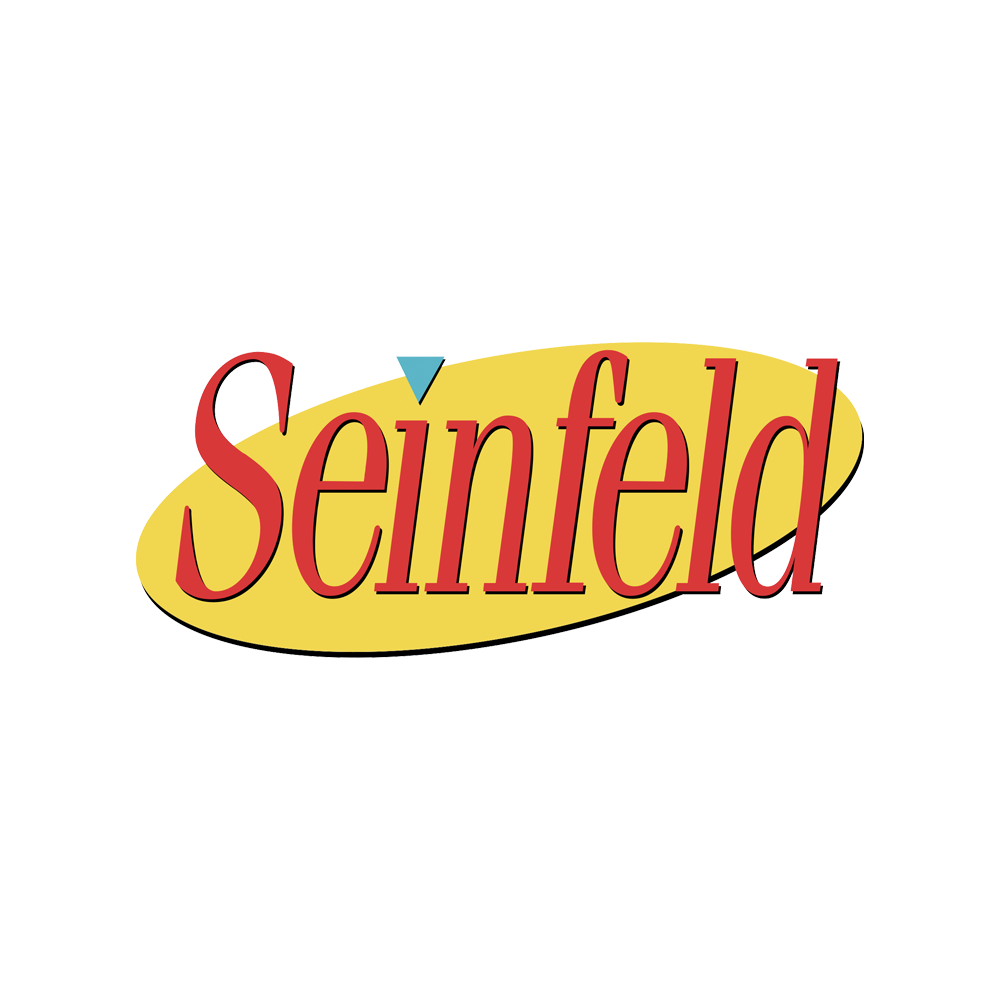
Seinfeld Font
ComedySeinfeld is a popular American sitcom created by Jerry Seinfeld and Larry David, which aired from 1989 to 1998. It follows the humorous misadventures of comedian Jerry Seinfeld and his quirky group of friends as they navigate everyday life in New York City, often centered around mundane but relatable situations.
The Seinfeld logo consists of the show's name in red text placed over a slanted yellow oval. The Seinfeld lettering closely resembles the ITC Fenice Std Oblique typeface, though it includes a subtle modification to the lowercase "i." The font was manually condensed to achieve the "tight" look.